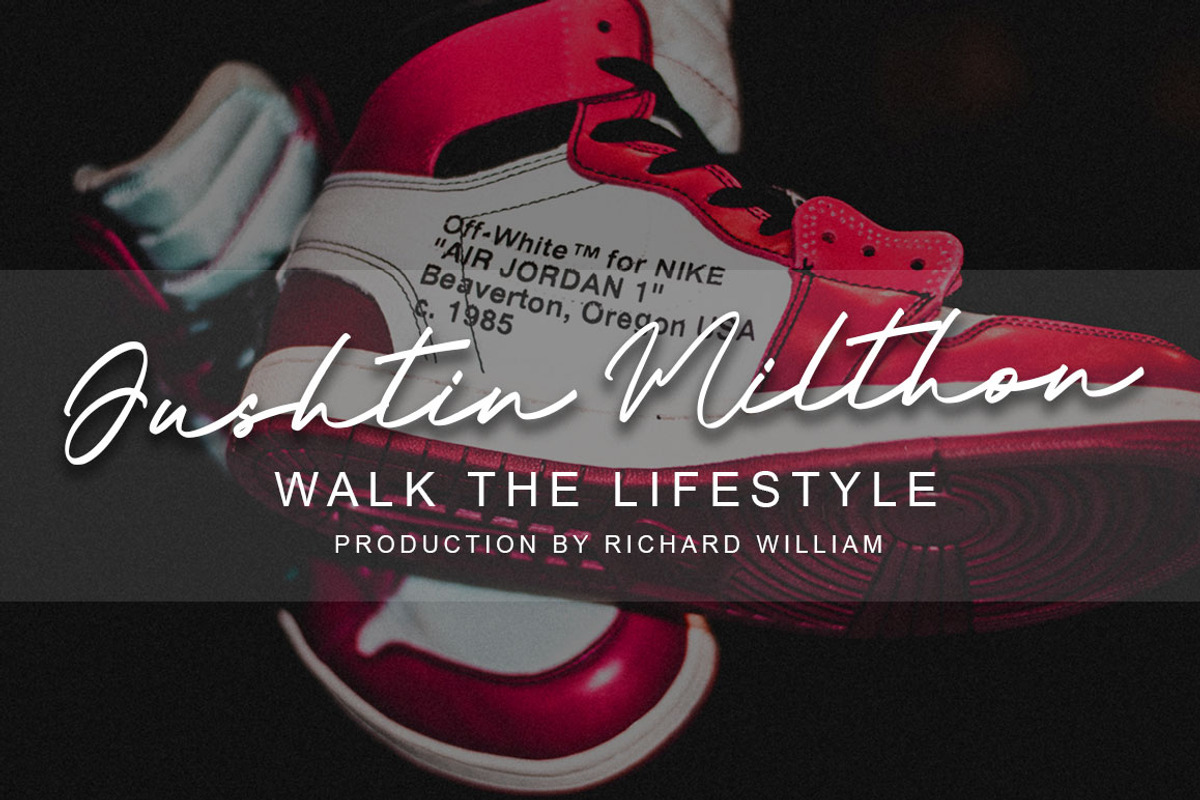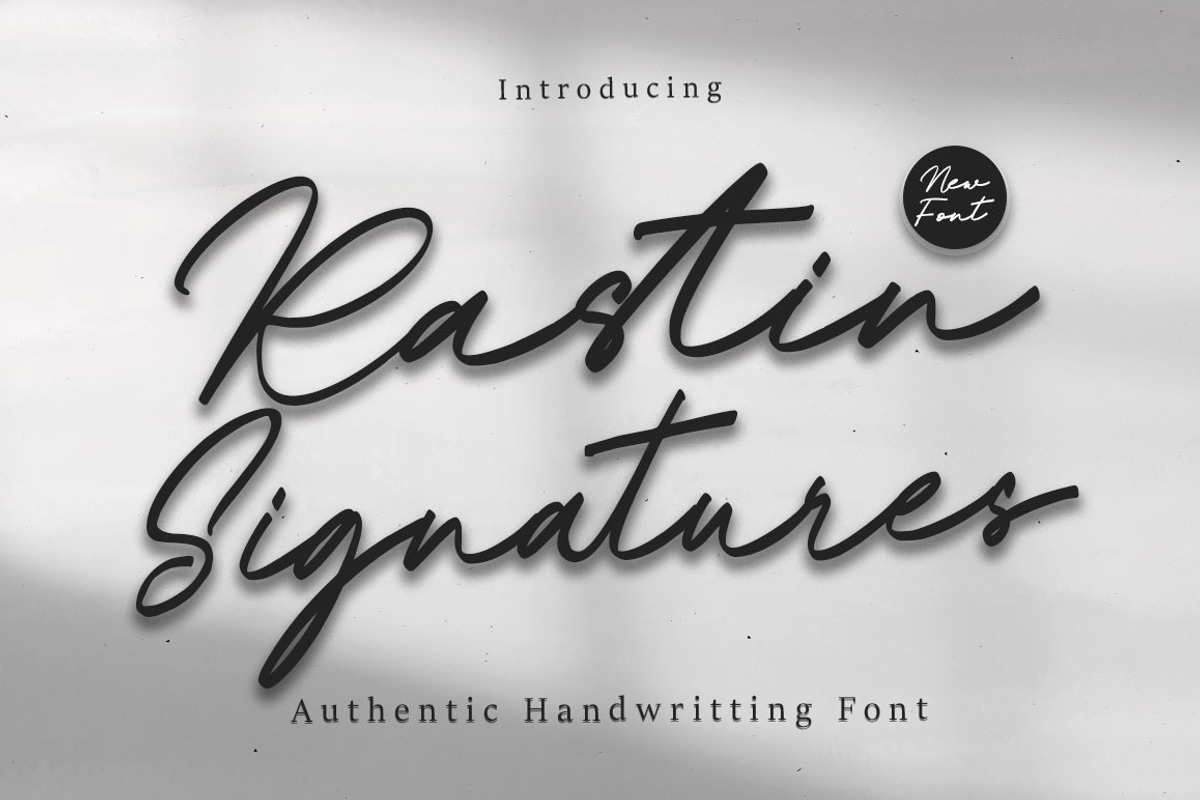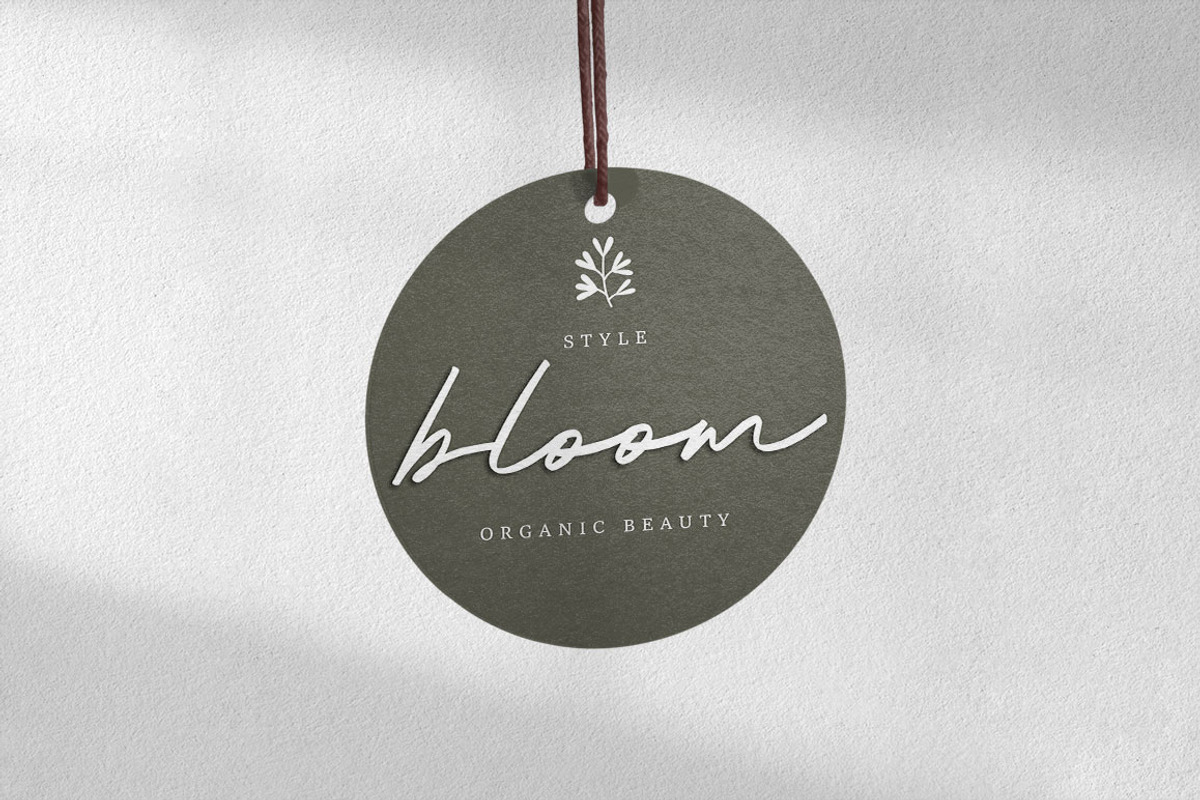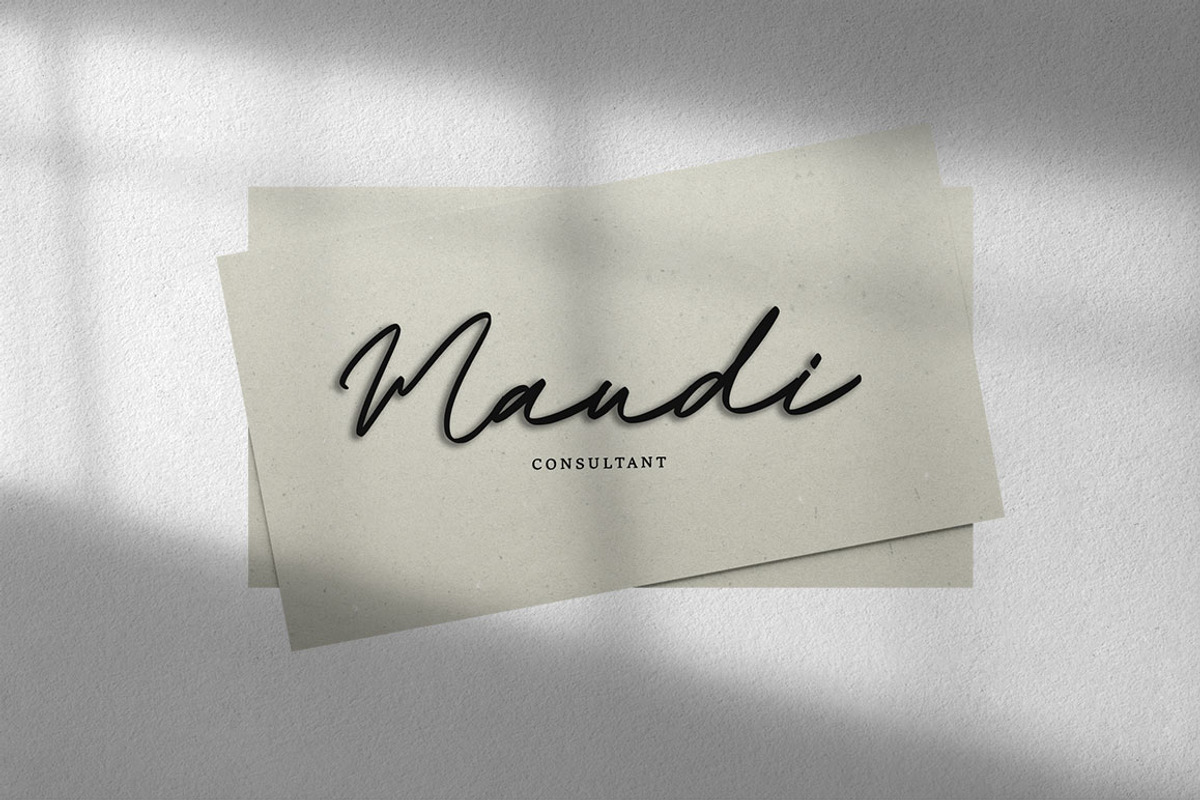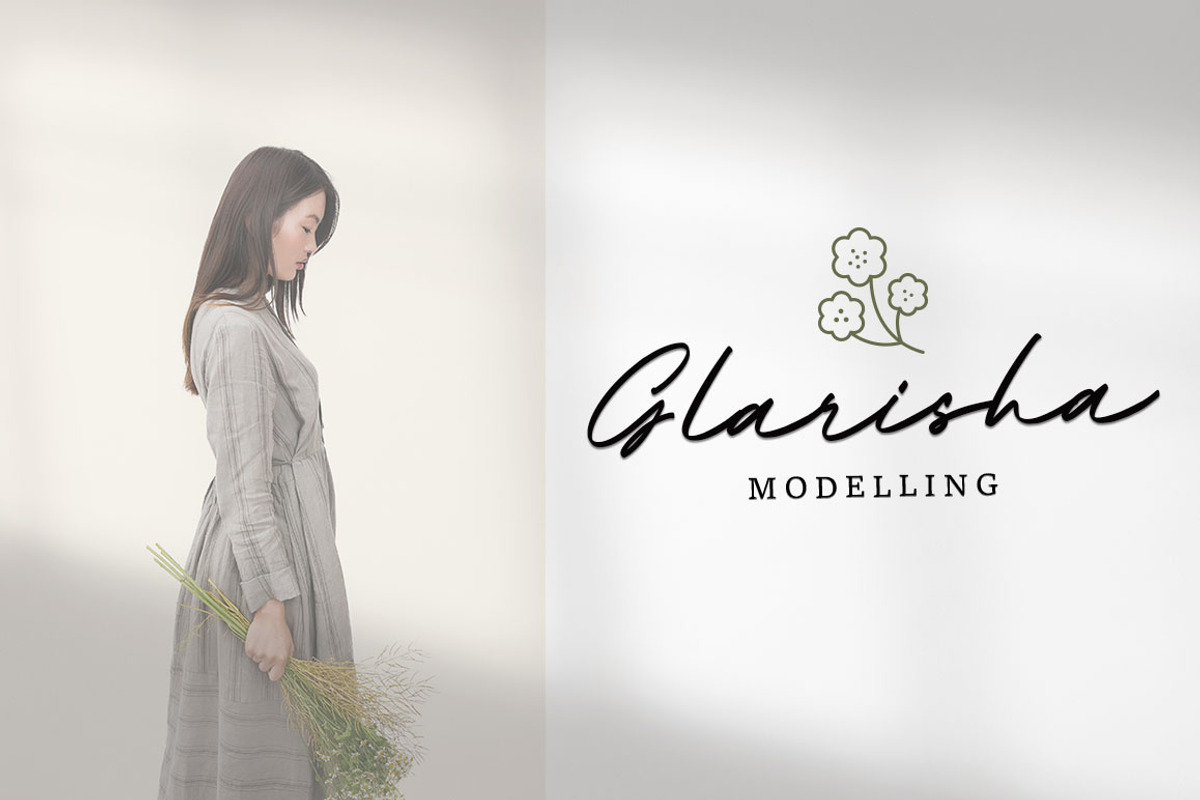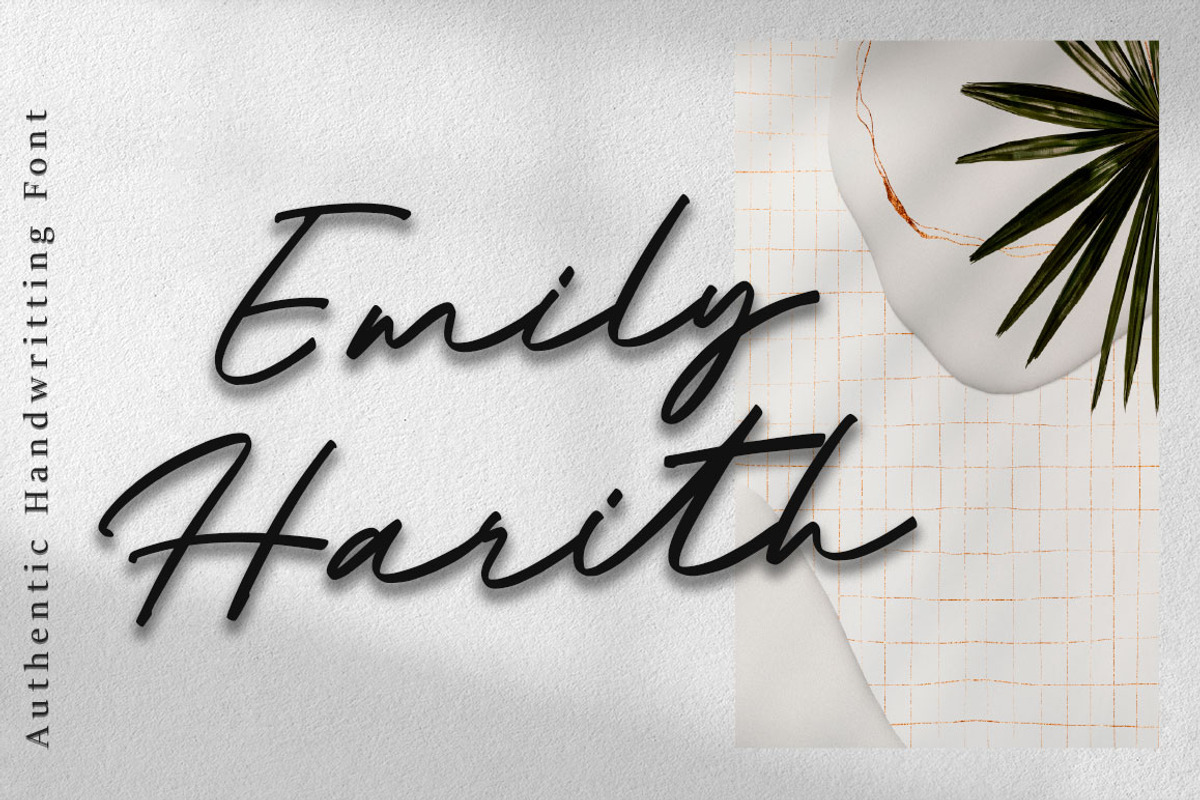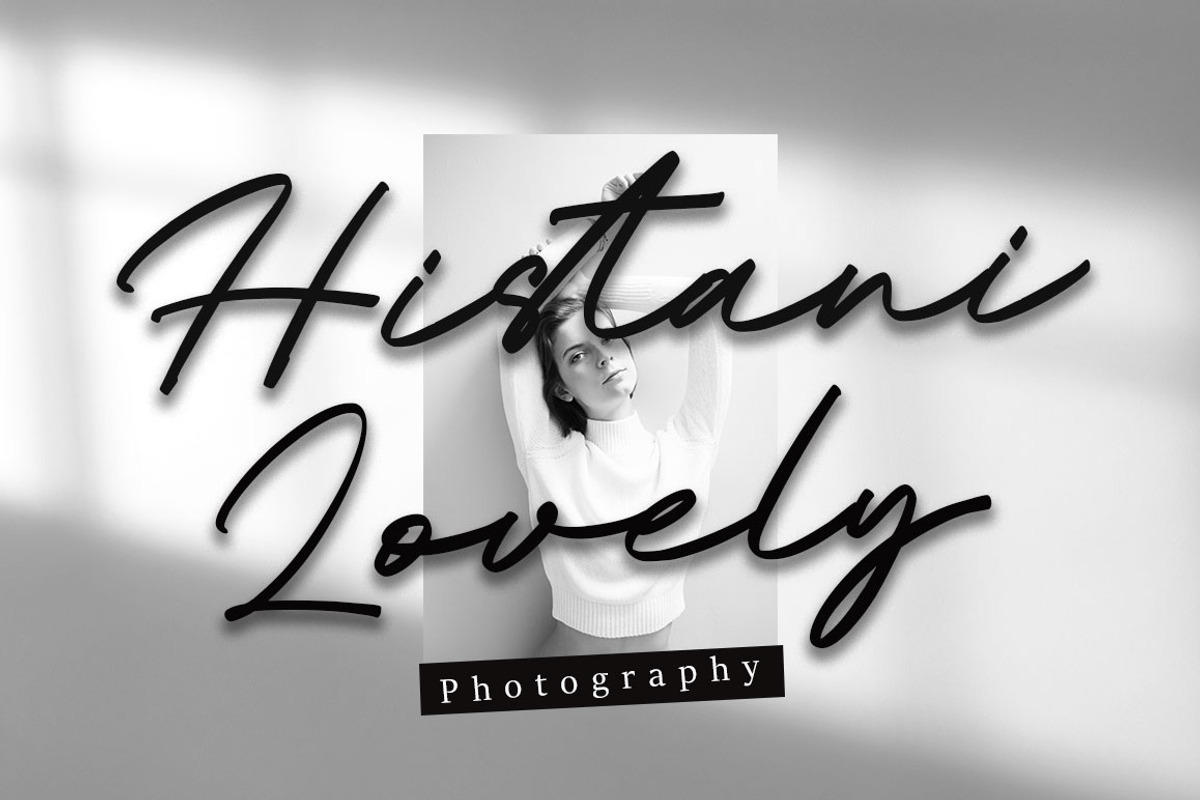
Rastin Signatures font
The Rastin Signatures font is a beautiful and simple handwritten script font, contemporary and fashionable, the Rastin Signatures font looks elegant for a wide variety of designs. This elegant font is legible and looks great as a title or body text. This font will be perfect for various designs for magazine headlines, social media, branding, wedding invitations, cards, etc. The Rastin Signatures font includes ligatures, capital letters, and alternate letters. You need a program that supports OpenType features such as Adobe Illustrator CS, Adobe Photoshop CC, Adobe Indesign and Corel Draw X6/X7. and you can also access alternative glyphs via Font Book (Mac users) or Windows Character Map (Windows users).